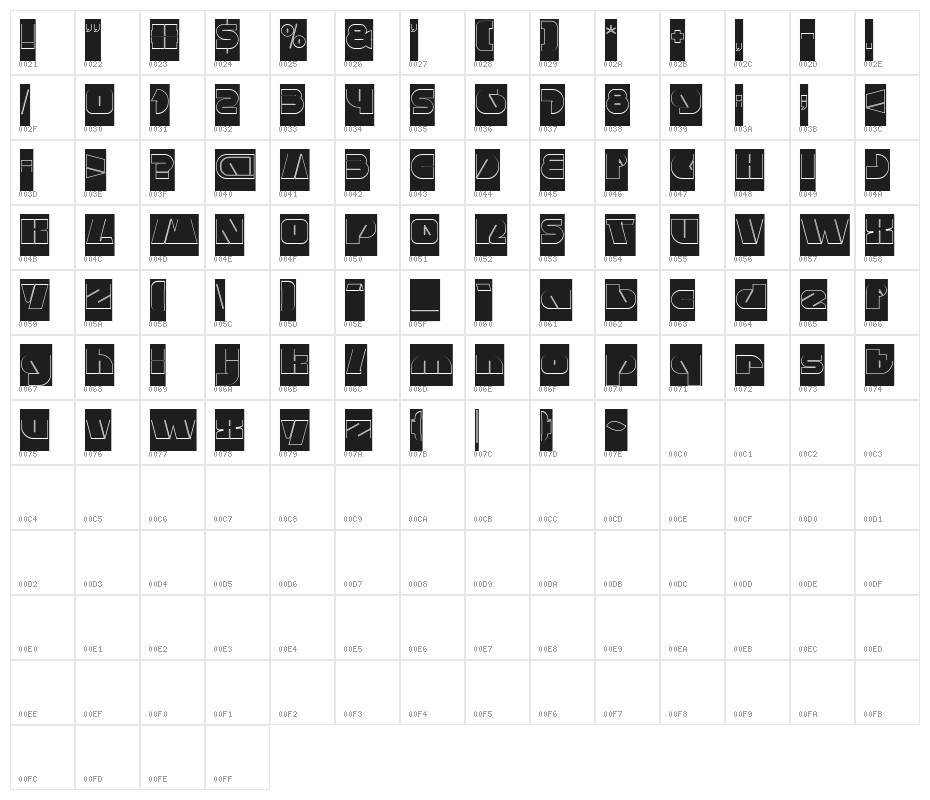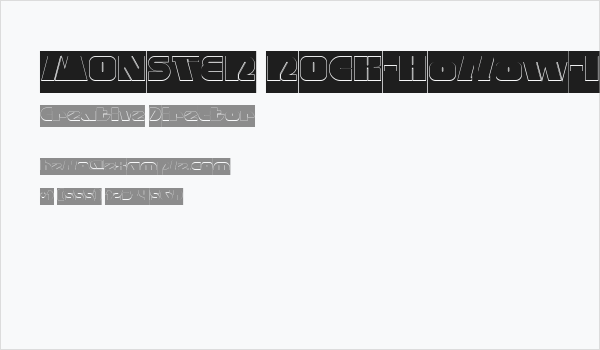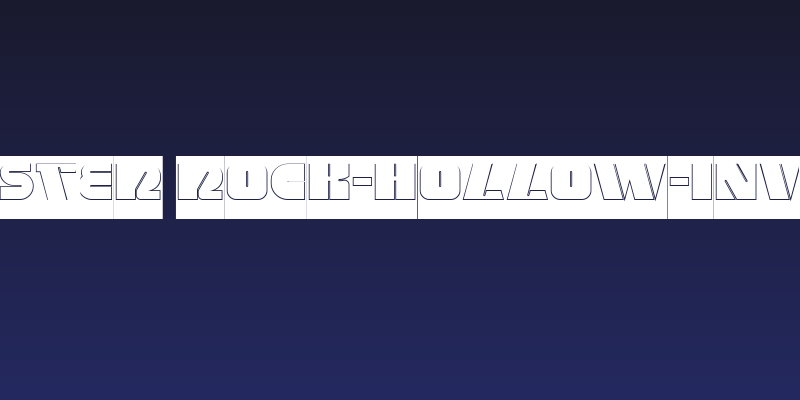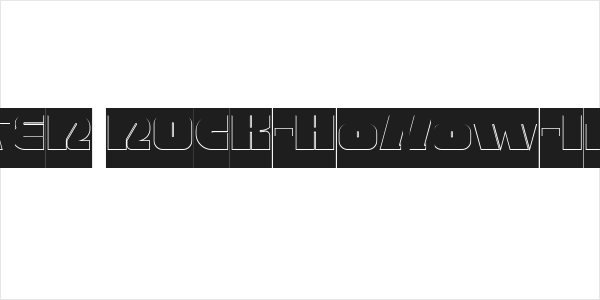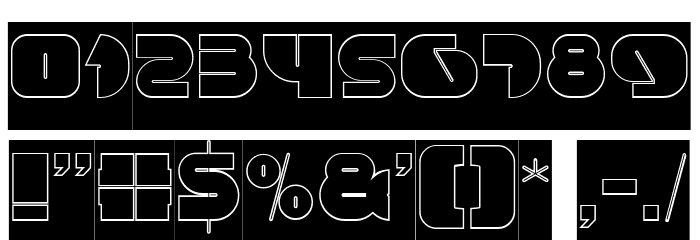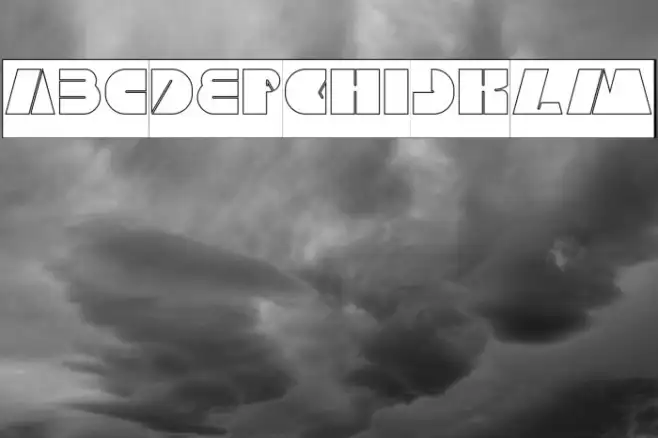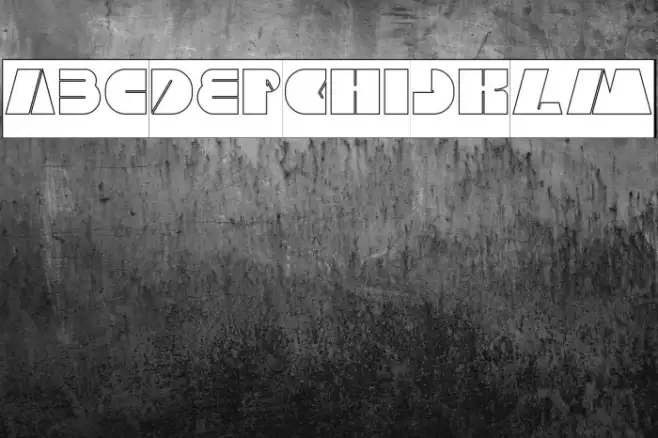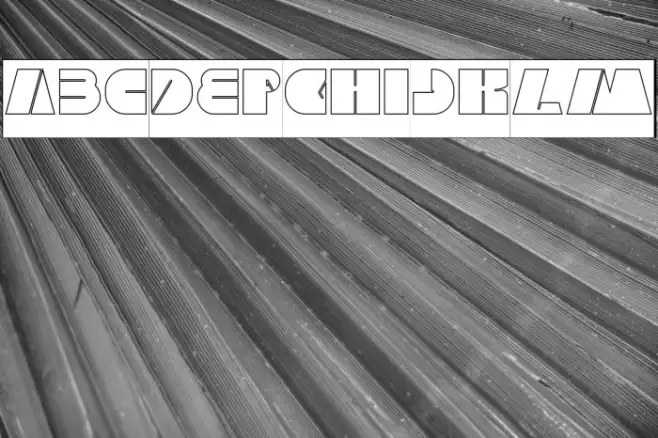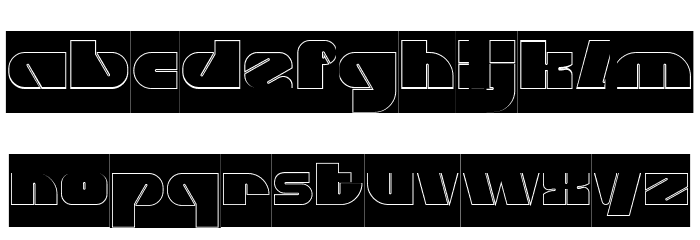
MONSTER ROCK-Hollow-Inverse Font
MONSTER ROCK-Hollow-Inverse Description
This font features a bold and striking hollow design with an inverse style, where the letters are outlined with a thick border and the interiors are left open. The geometric shapes and sharp angles give it a modern and edgy appearance, making it stand out in any design. The uppercase and lowercase letters maintain consistency in style, with the uppercase being more angular and the lowercase slightly more rounded. Numbers and special characters follow the same hollow and bold design, ensuring uniformity across all elements. The font's unique style makes it suitable for attention-grabbing headlines or titles.
MONSTER-ROCK-HOLLOW-INVERSE UPPERCASE
MONSTER-ROCK-HOLLOW-INVERSE LOWERCASE
MONSTER-ROCK-HOLLOW-INVERSE OTHER CHARS